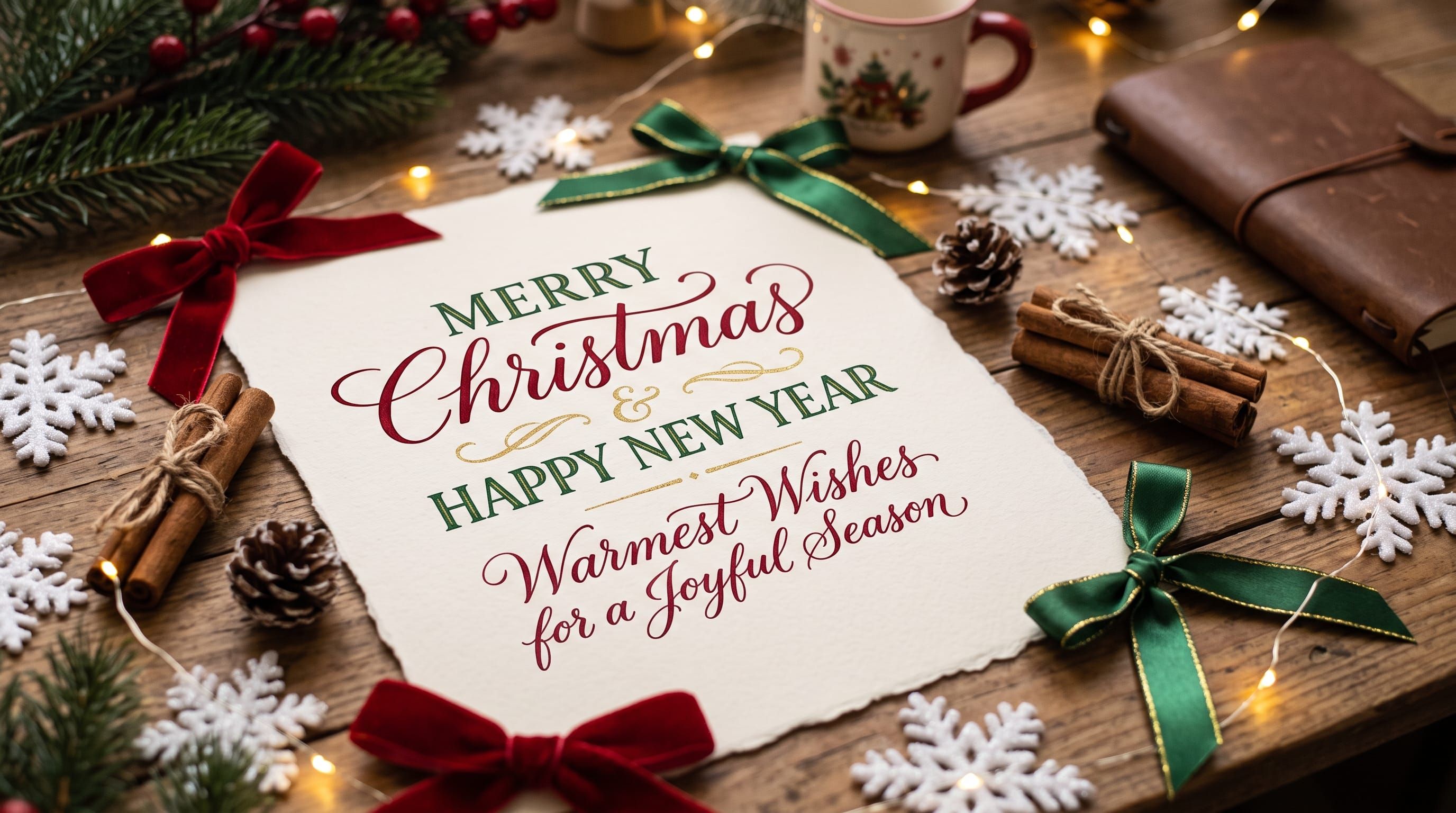
Christmas Fonts for Better Holiday Design Results
Christmas fonts
Choosing the right Christmas fonts can instantly transform an ordinary holiday design into something warm, festive, and memorable. Whether you’re designing Christmas cards, gift tags, product packaging, social media graphics, Cricut projects, or holiday marketing campaigns, typography plays a major role in capturing the joyful spirit of the season.
The best Christmas fonts communicate personality before anyone reads the message. Some evoke cozy winter evenings, while others create playful excitement, elegant celebrations, or nostalgic vintage charm. By combining beautiful typography with thoughtful layouts and seasonal colors, designers can create projects that leave lasting impressions.
This guide explores the best ways to choose Christmas fonts, how to pair them effectively, common typography mistakes to avoid, recommended design tools, and exclusive DM Letter Studio font pairing suggestions that work beautifully for holiday projects.
Why Christmas Fonts Matter
Typography is often the first visual element people notice.
Well-chosen Christmas fonts help:
• Create festive emotions
• Strengthen seasonal branding
• Improve design readability
• Increase product appeal
• Enhance handmade crafts
• Build memorable holiday experiences
• Differentiate products from competitors
Good typography makes holiday designs feel intentional and professional.
Christmas Fonts for Different Holiday Styles
Different holiday themes require different typography.
Modern Christmas Fonts
Modern styles typically feature:
• Clean letterforms
• Minimal decoration
• Elegant spacing
• Contemporary aesthetics
Ideal for:
• Luxury packaging
• Corporate holiday campaigns
• Premium invitations
• Modern websites
Vintage Christmas Fonts
Vintage-inspired Christmas fonts often include:
• Retro lettering
• Classic serif styles
• Distressed textures
• Nostalgic charm
Perfect for:
• Holiday posters
• Christmas markets
• Handmade labels
• Seasonal packaging
Playful Christmas Fonts
Playful fonts create cheerful designs.
Popular uses include:
• Children’s products
• Holiday stickers
• Party invitations
• Classroom decorations
These fonts communicate warmth and fun.
Christmas Fonts for Craft Projects
Holiday crafting continues growing every year.
Cricut Projects
Popular Cricut applications include:
• Wooden signs
• Vinyl decals
• Gift tags
• Personalized ornaments
• Holiday mugs
The right Christmas fonts improve cutting quality and readability.
Sublimation Designs
Typography works well on:
• Tumblers
• Pillows
• T-shirts
• Tote bags
• Blankets
Simple, bold fonts often produce cleaner prints.
Greeting Cards
Cards benefit from typography that feels welcoming.
Combine decorative headlines with readable supporting text.
Christmas Fonts for Business Marketing
Businesses also rely on seasonal typography.
Retail Promotions
Use Christmas fonts for:
• Holiday sales
• Store banners
• Window displays
• Email campaigns
Seasonal branding increases customer engagement.
Social Media Graphics
Holiday posts often include:
• Promotional offers
• Gift guides
• Countdown graphics
• Seasonal announcements
Typography should remain readable on mobile devices.
Product Packaging
Holiday packaging becomes more memorable with festive typography.
Examples include:
• Chocolate boxes
• Coffee packaging
• Gift sets
• Cosmetics
Elegant fonts enhance perceived value.
Recommended Christmas Fonts from DM Letter Studio
The right font combinations create beautiful seasonal compositions.
Snowy Night
Snowy Night - Snowy Handwritten Font
Best for:
• Christmas headlines
• Holiday posters
• Winter event graphics
• Seasonal merchandise
Snowy Night features a premium winter display style that immediately creates a festive atmosphere.
Happy Pen
Perfect for:
• Greeting cards
• Holiday quotes
• Personalized gifts
• Christmas invitations
Its friendly handwritten appearance adds warmth and personality.
Grinch Snow Font
Ideal for:
• Rustic Christmas signs
• Farmhouse decorations
• Christmas café menus
• Holiday markets
The style creates a cozy handmade look.
Softaline
Excellent for:
• Elegant gift tags
• Holiday packaging
• Seasonal branding